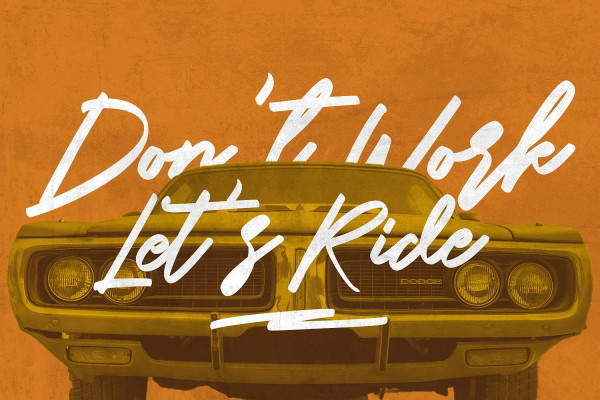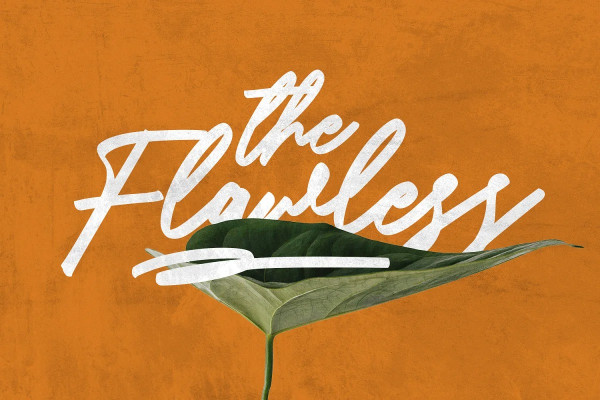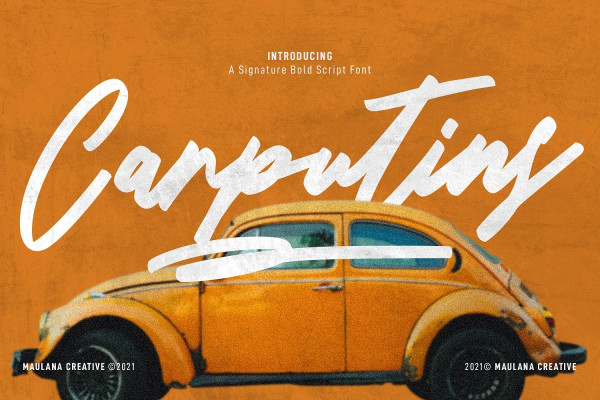
Carputins Font
Carputins Font is a casual script font. With bold felt tip stroke, fun character with a bit of ligatures and has a two files lowercase alternates extra swashes. To give you an extra creative work. Carputins font support multilingual more than 100+ language. This font is good for logo design, Social media, Movie Titles, Books Titles, a short text even a long text letter and good for your secondary text font with sans or serif. Make a stunning work with Carputins font.